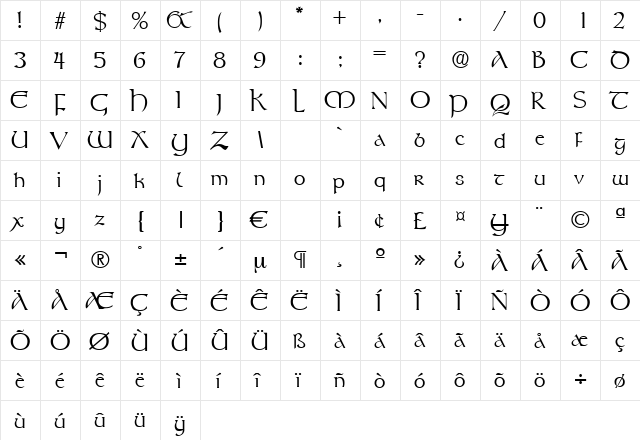
Rosslaire Regular
Design Context for Rosslaire Typeface
Rosslaire is a composed and adaptable typeface that performs quietly and consistently across a wide range of design contexts.